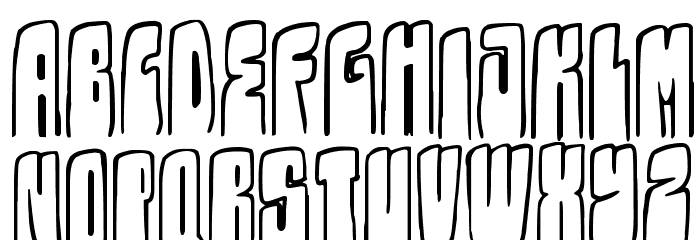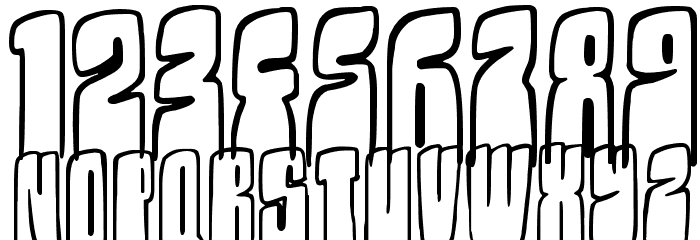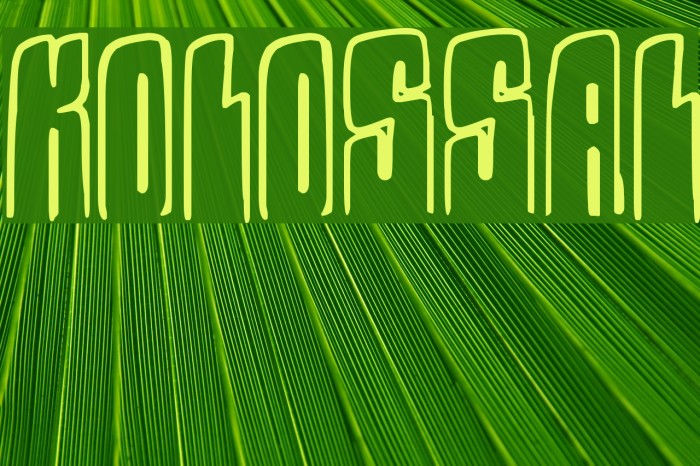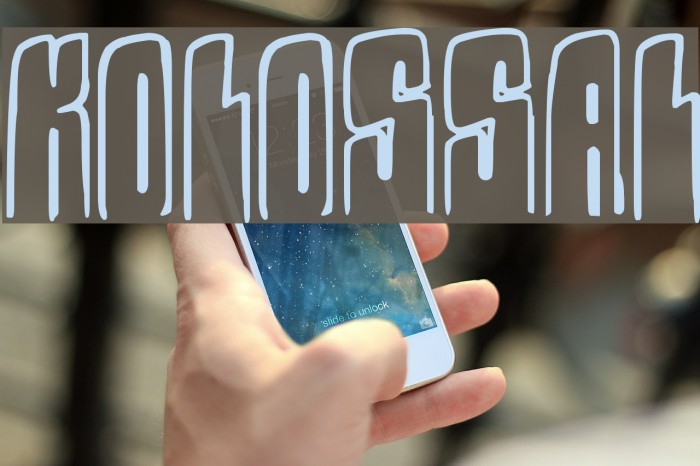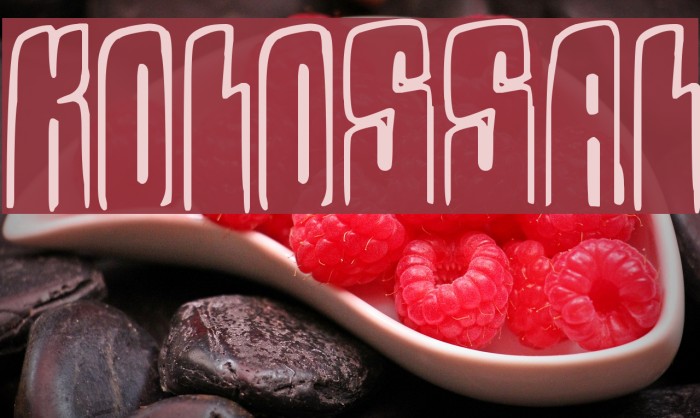
Kolossal Font
This font features a bold and dramatic style, characterized by its thick, elongated letterforms that create a sense of height and grandeur. The strokes are consistent in width, giving it a monolithic appearance, while the rounded edges soften the overall look. The uppercase and lowercase letters maintain a uniform style, ensuring readability despite the unique design. Numbers and special characters are crafted with the same attention to detail, making them seamlessly integrate with the alphabet. This font's distinctive style makes it ideal for making a strong visual impact.
A bold, elongated font with consistent stroke width and rounded edges.
- Proposed Projects: Ideal for posters, headlines, branding, and any project requiring a strong visual impact.